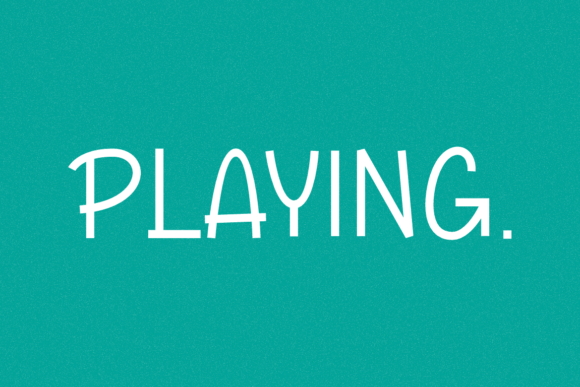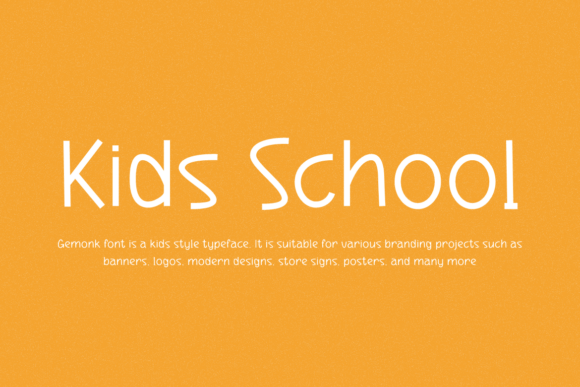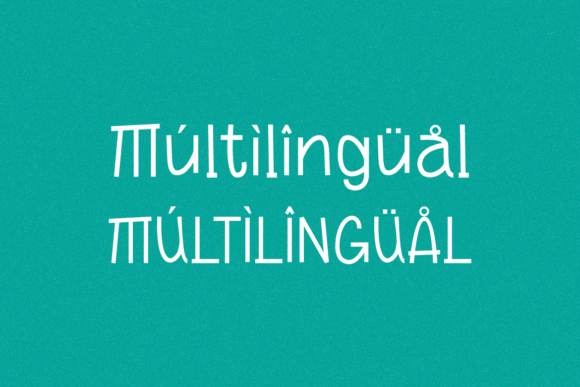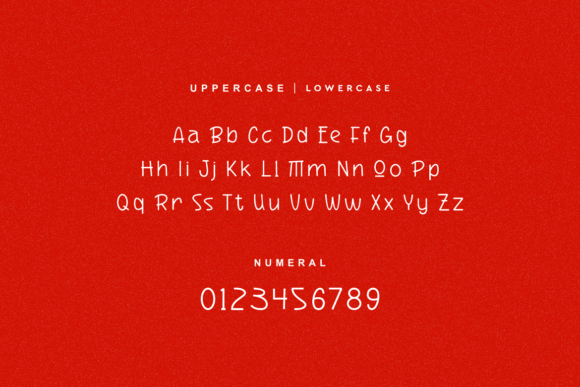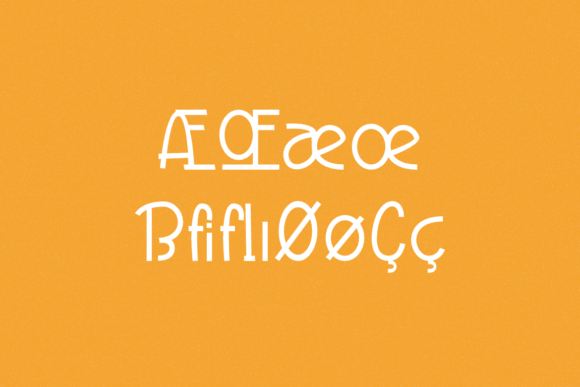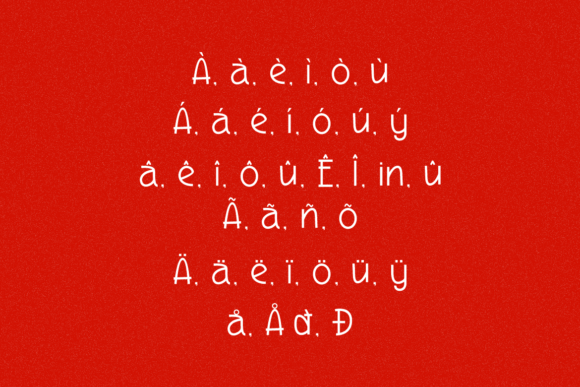
Unleash Your Creativity with Gemonk Font: A Vibrant and Eccentric Display Typeface
Are you tired of using the same old fonts in your designs? Do you want to add a touch of uniqueness and playfulness to your creative projects? Look no further than Gemonk, a beautifully unconventional display font that is sure to inject a vibrant dose of eccentric charm and raw creative freedom into your design grid.
A Rebel with a Cause: The Story Behind Gemonk
Gemonk is a hand-drawn sans-serif typeface that breaks entirely away from rigid typographic rules. Its creator, driven by a passion for creative experimentation, has crafted a font that relies on primitive geometry, varying stem heights, and striking baseline shifts to establish its rebellious personality. The result is a typeface that is both modern and ancient, with a unique architectural framework that blends stylized tribal curves, exaggerated crossbars, and underlined circular characters.
A Font that Defies Convention
Unlike traditional fonts, Gemonk doesn’t play by the rules. Its unconventional design makes it perfect for designers and crafters who want to add a touch of edginess to their work. With Gemonk, you can create designs that are truly one-of-a-kind, from alternative streetwear branding to quirky book titles, custom sticker layout graphics, artisanal product packaging, and edgy social media headlines.
The Characteristics of Gemonk
So, what makes Gemonk so unique? Here are just a few of its key characteristics:
- Primitive Geometry: Gemonk’s design is based on simple, primitive shapes, giving it a raw and unrefined feel.
- Varying Stem Heights: The font’s stem heights vary, creating a sense of rhythm and flow.
- Striking Baseline Shifts: Gemonk’s baseline shifts are bold and eye-catching, adding to its rebellious personality.
- Stylized Tribal Curves: The font’s curves are stylized and tribal-inspired, giving it a modern cave-art feel.
- Exaggerated Crossbars: Gemonk’s crossbars are exaggerated, adding to its unique character.
- Underlined Circular Characters: The font’s circular characters are underlined, creating a sense of movement and energy.
Using Gemonk in Your Designs
Gemonk is an incredibly versatile font that can be used in a wide range of design applications. Here are just a few ideas to get you started:
- Alternative Streetwear Branding: Gemonk’s edgy, rebellious personality makes it perfect for streetwear branding.
- Creative Indie Music Festival Posters: The font’s unique character is sure to stand out in music festival posters and flyers.
- Quirky Book Titles: Gemonk adds a touch of whimsy and playfulness to book titles and covers.
- Custom Sticker Layout Graphics: The font’s bold, eye-catching design makes it perfect for custom sticker graphics.
- Artisanal Product Packaging: Gemonk’s unique character can add a touch of personality to artisanal product packaging.
- Edgy Social Media Headlines: The font’s rebellious personality makes it perfect for social media headlines that want to stand out.
In conclusion, Gemonk is a truly unique and versatile font that is sure to add a touch of eccentric charm and raw creative freedom to your design grid. Its unconventional design, primitive geometry, and striking baseline shifts make it perfect for designers and crafters who want to push the boundaries of creativity. Whether you’re working on alternative streetwear branding, creative indie music festival posters, quirky book titles, custom sticker layout graphics, artisanal product packaging, or edgy social media headlines, Gemonk is the perfect choice.